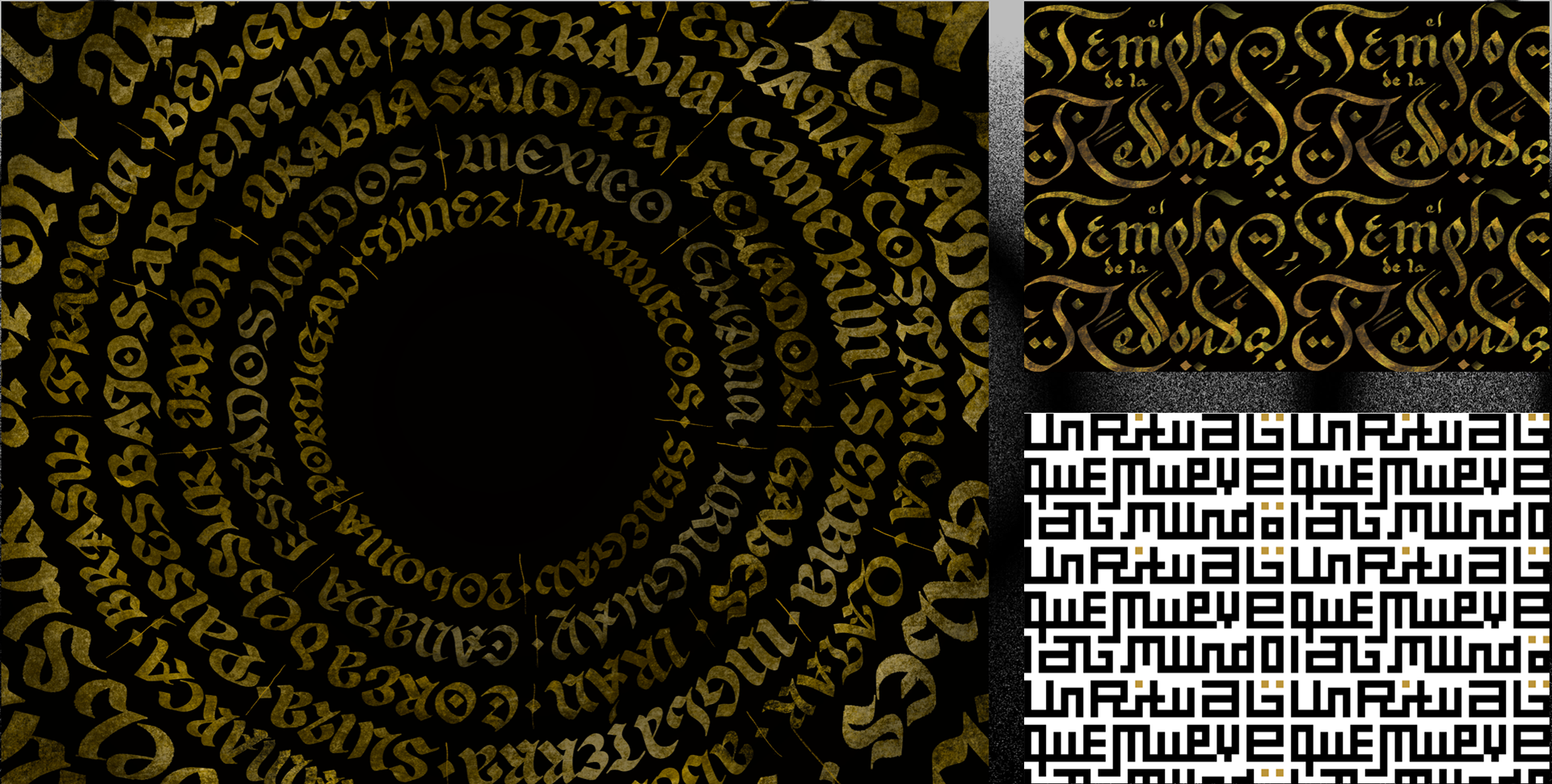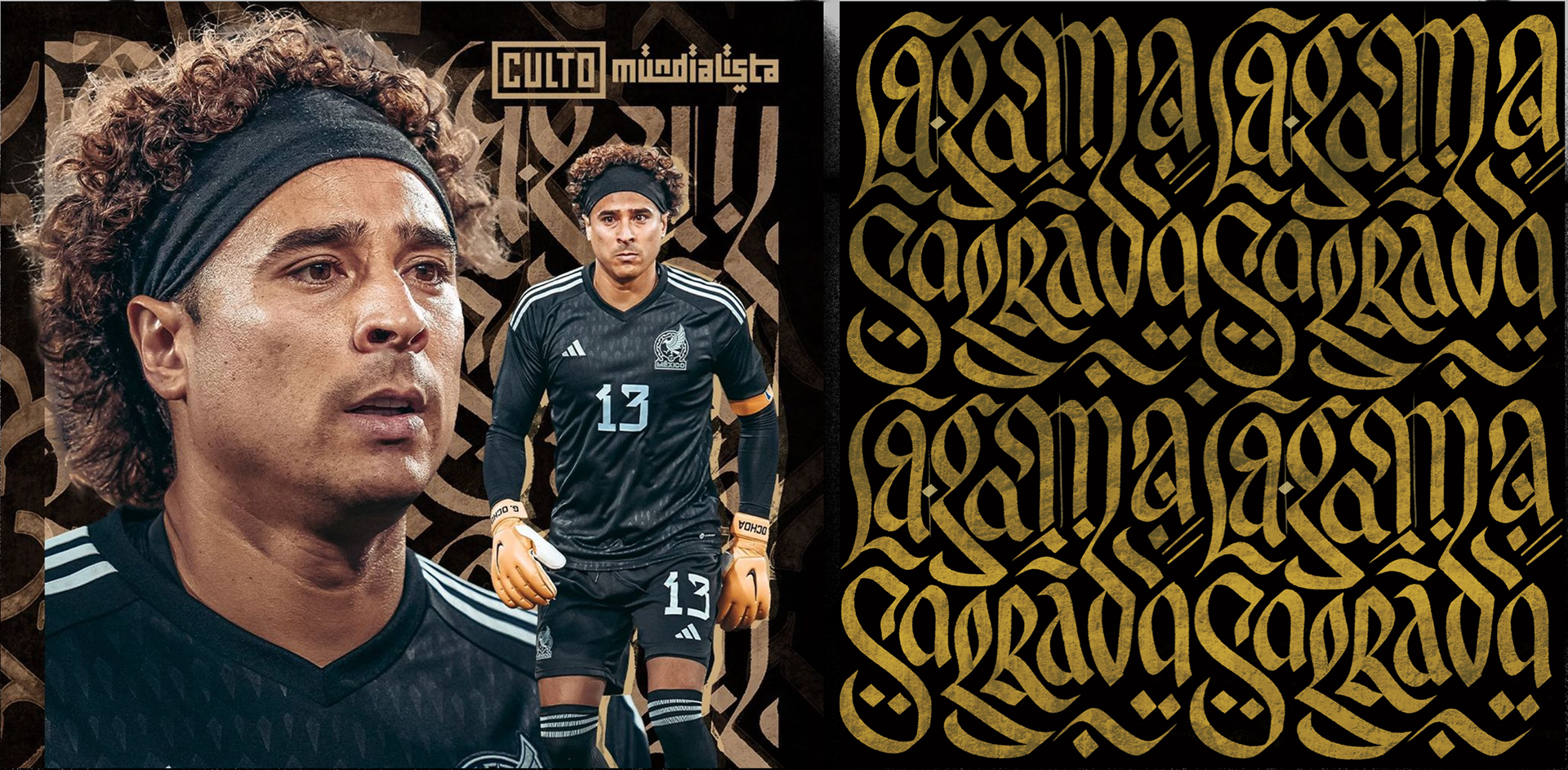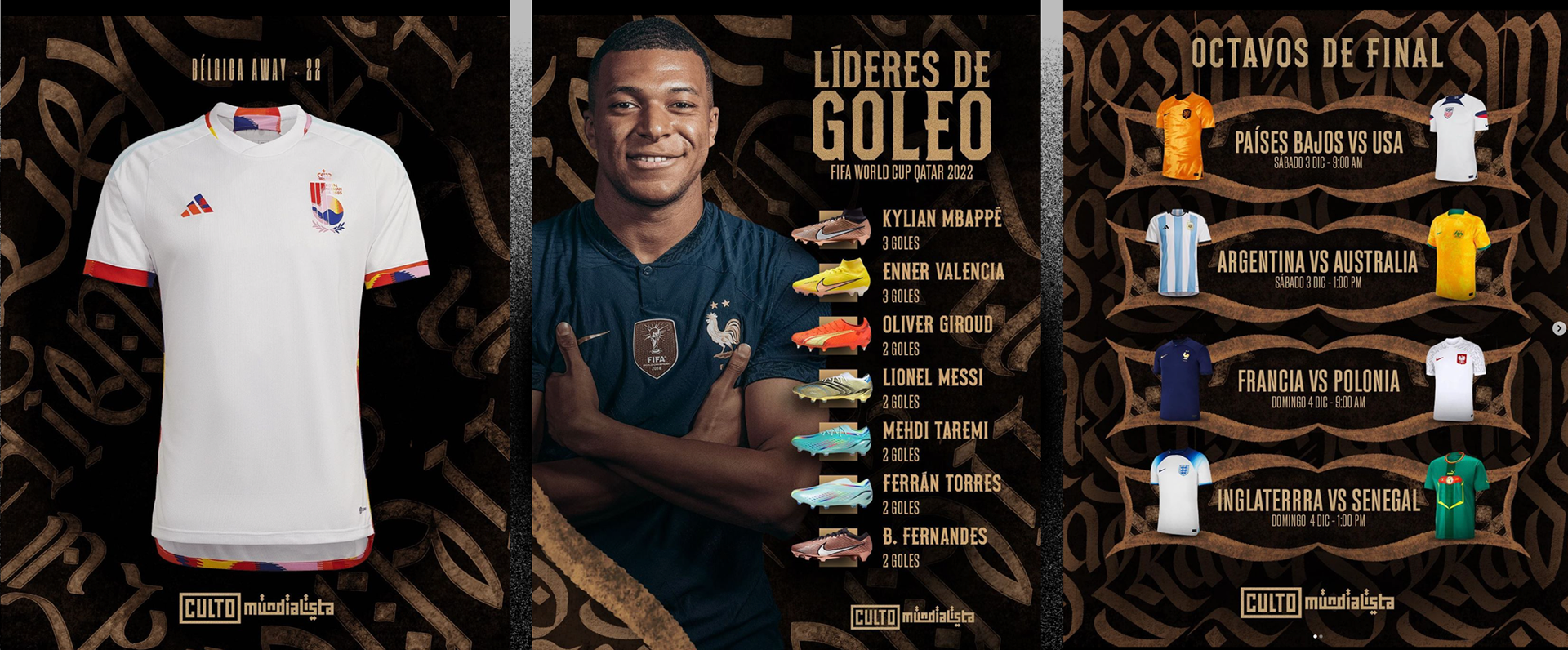
Calligraphic interpretation of visual assets created for Quique Ollervides Studio. The project explores the integration of calligraphy as an expressive element within the brand's visual language, creating dynamic compositions for Culto Mundialista product campaigns across social media.